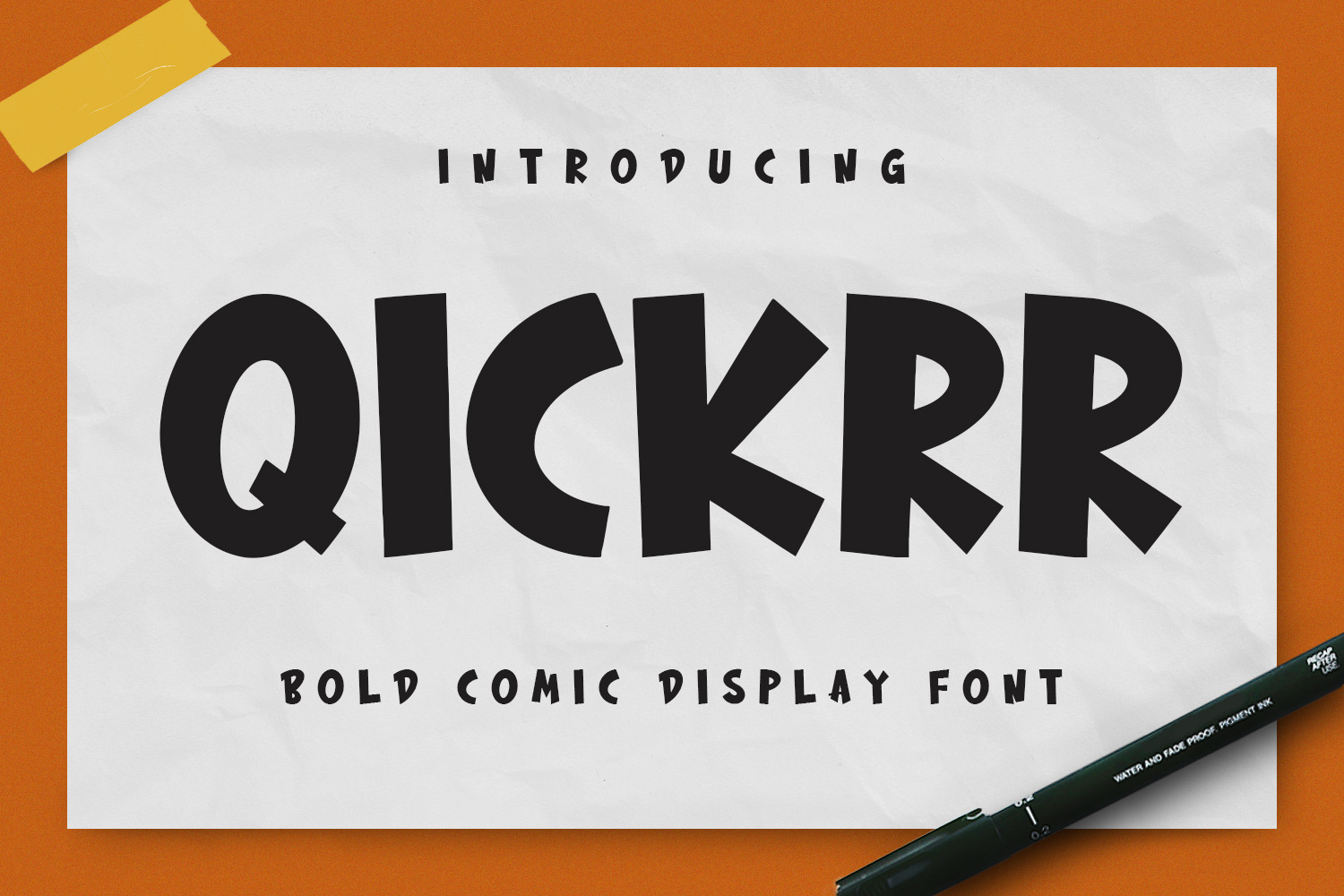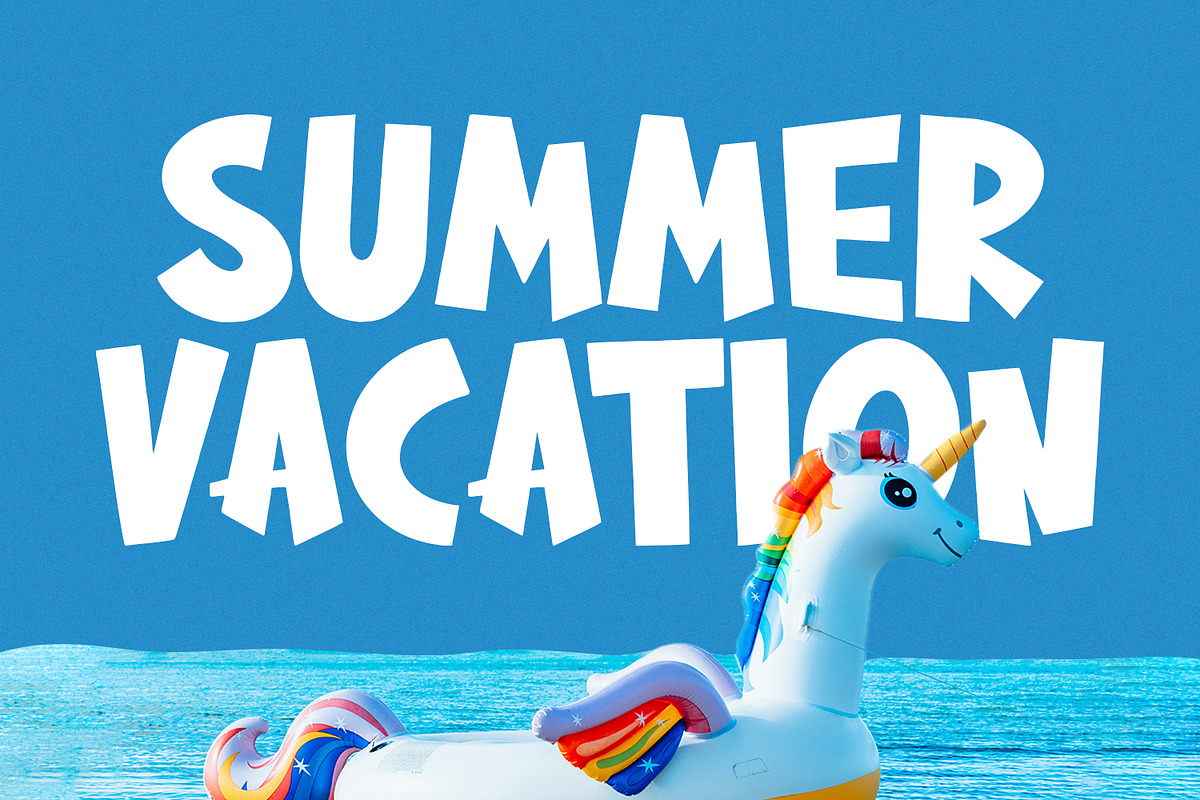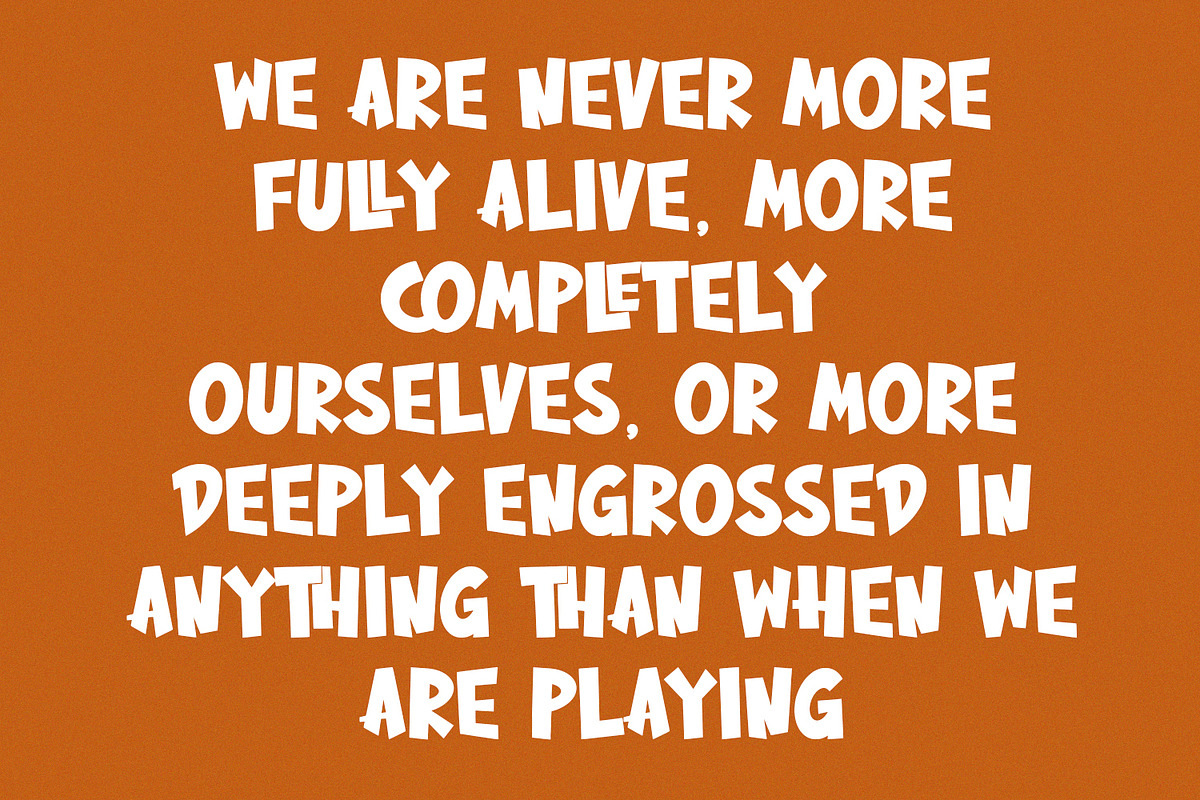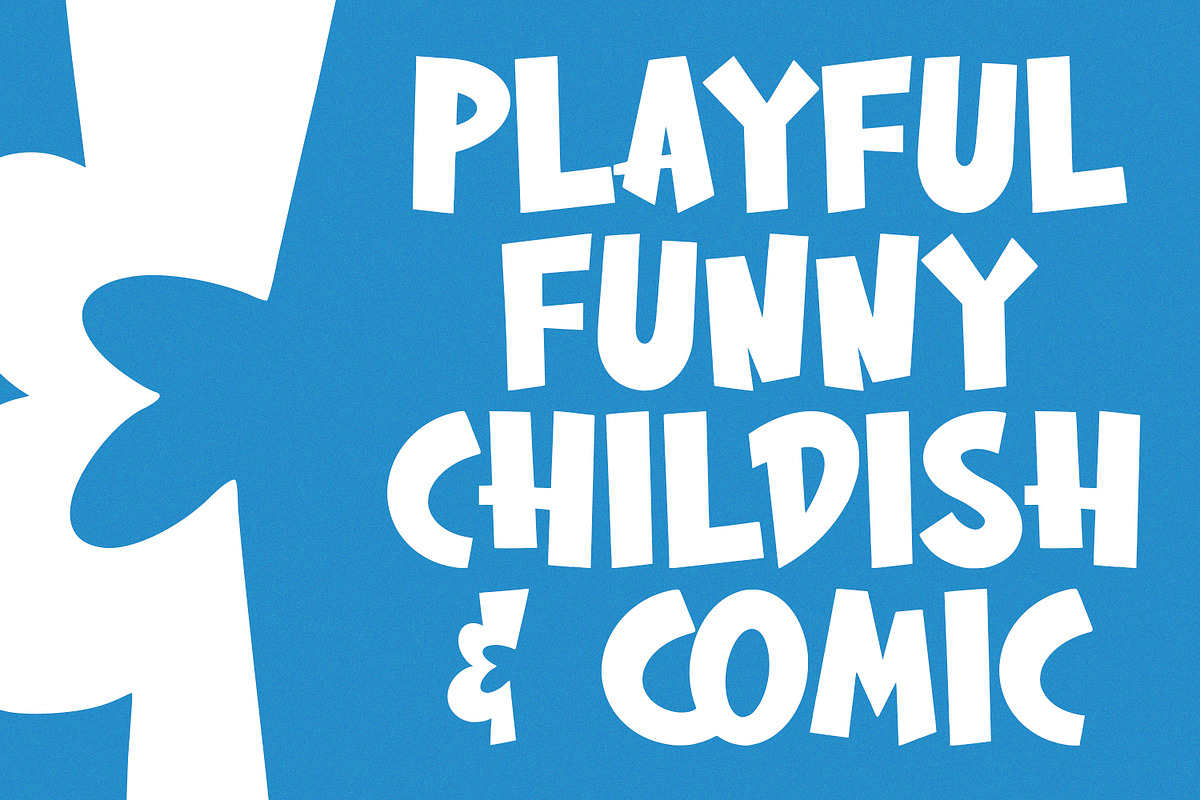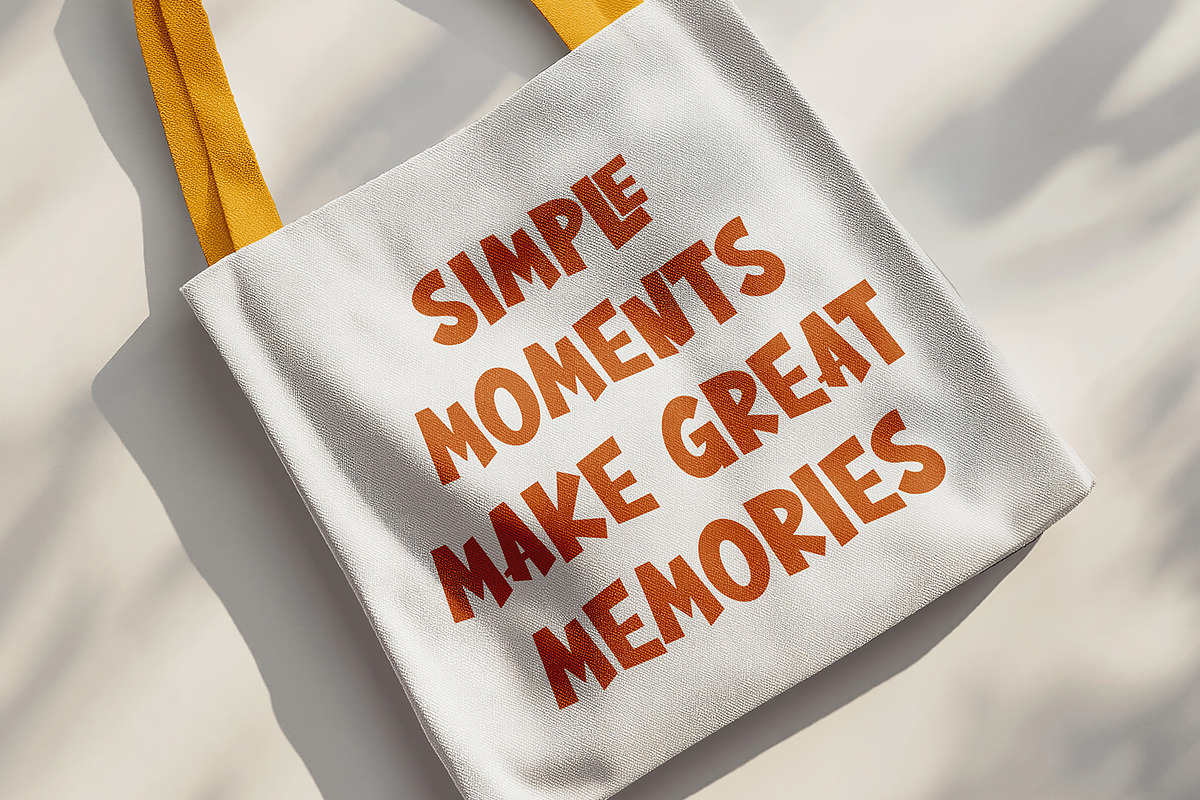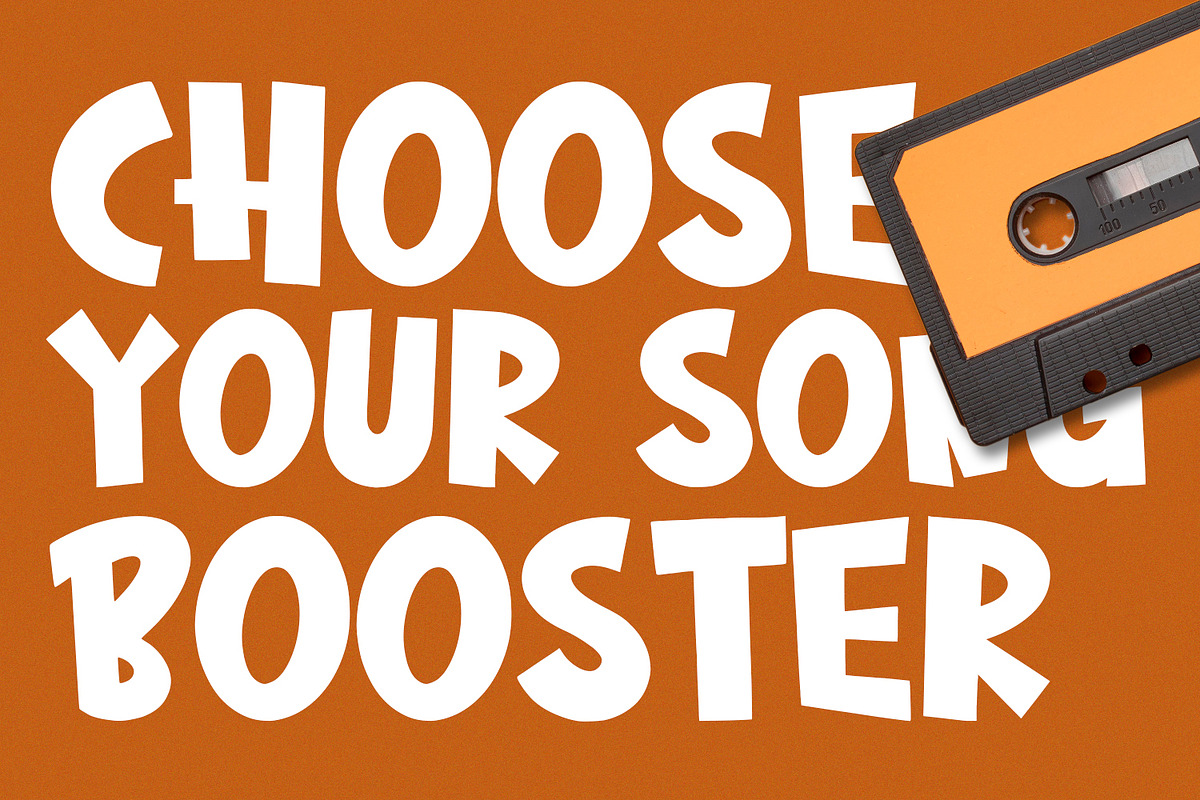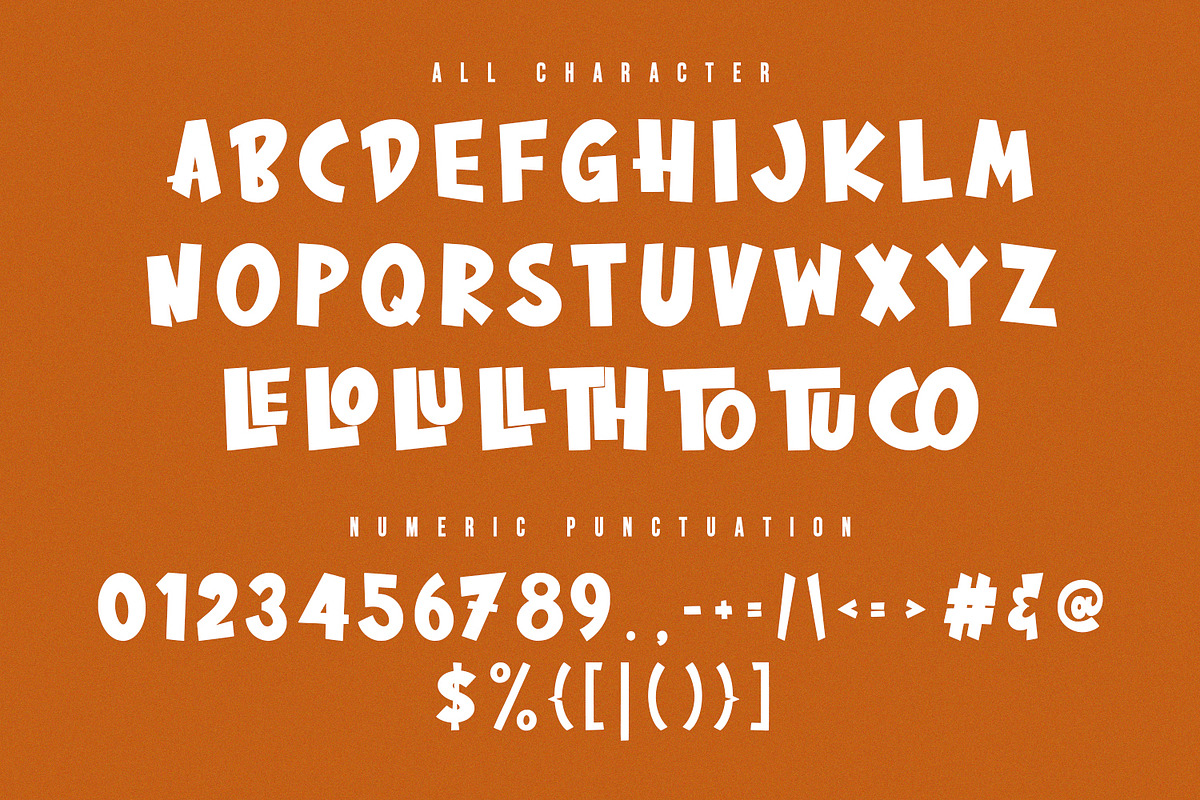
Qickrr Comic Bold Display Font
Qickrr is a comic bold display handwritten font. With bold stroke, fun character with a bit of ligatures. To give you an extra creative work. Qickrr font support multilingual more than 100+ language. This font is good for logo design, Social media, Movie Titles, Books Titles, a short text even a long text letter and good for your secondary text font with sans or serif. Make a stunning work with Qickrr font.